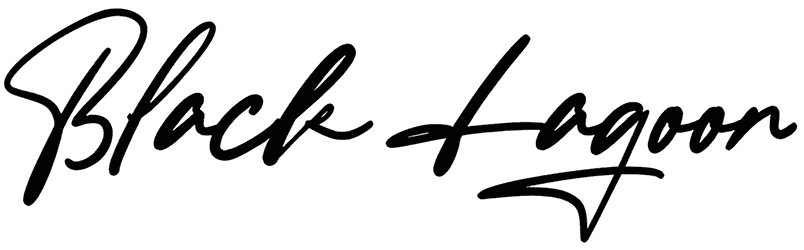
Black Lagoon Font
Black Lagoon is a lovely script font that comes with a unique style and feels totally elegant. Despite the lack of good readability, this signature font looks insanely perfect for any kind of editorial project, including…
Black Lagoon is a lovely script font that comes with a unique style and feels totally elegant. Despite the lack of good readability, this signature font looks insanely perfect for any kind of editorial project, including business cards, billboards, or the user interface of applications.
In addition to carrying a vibe of momentum, vitality, or precision, this marvelous artwork lets you add an artistic touch to all of your editorial projects. Also, don’t forget to check out the RB archive.